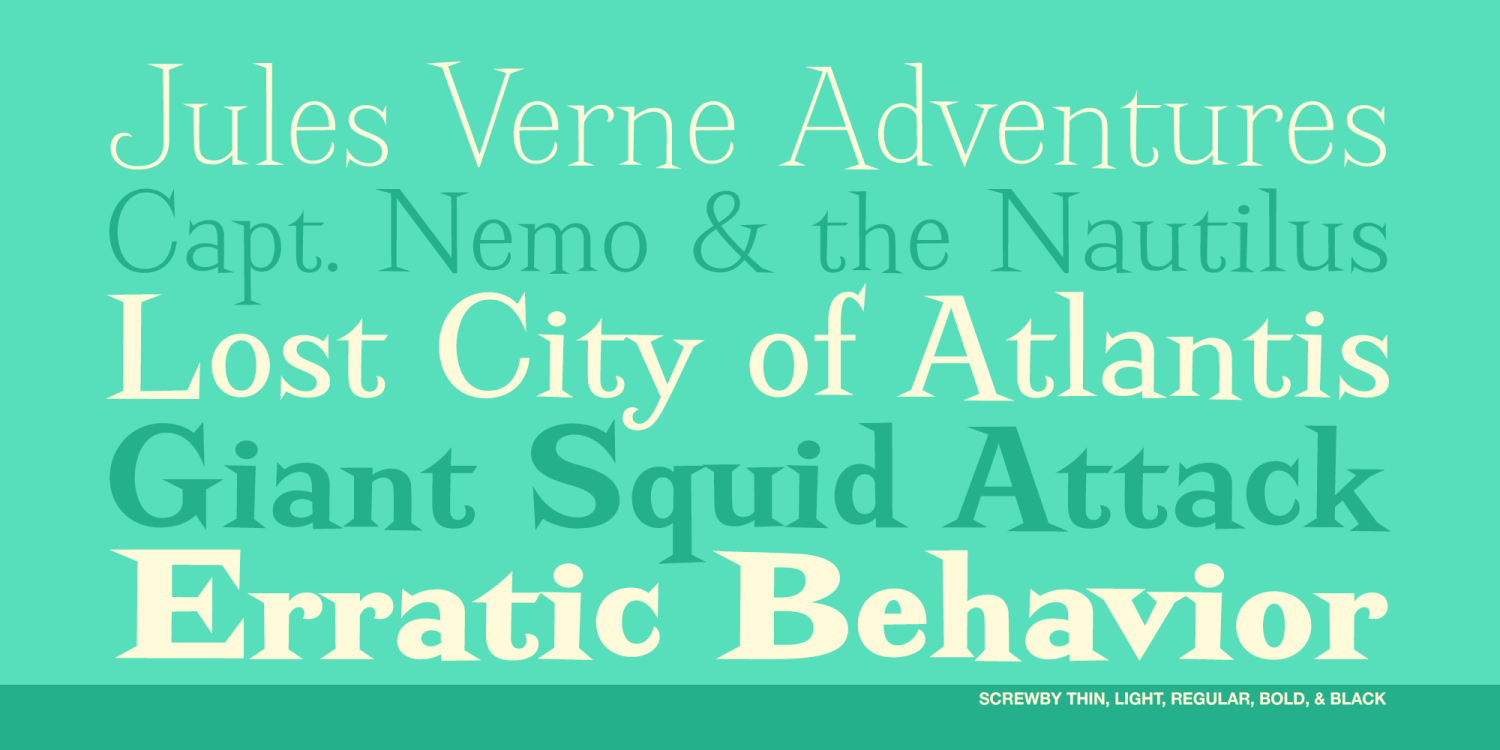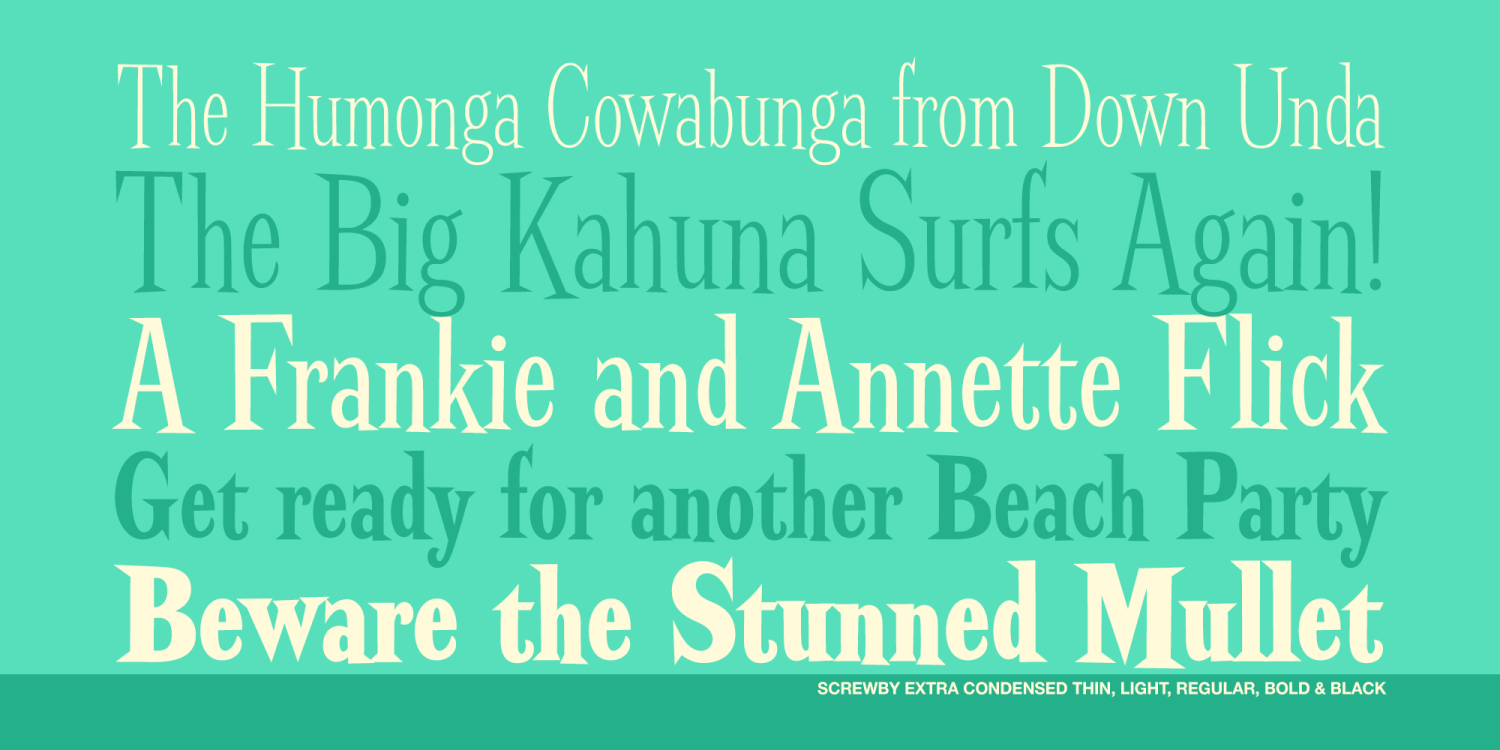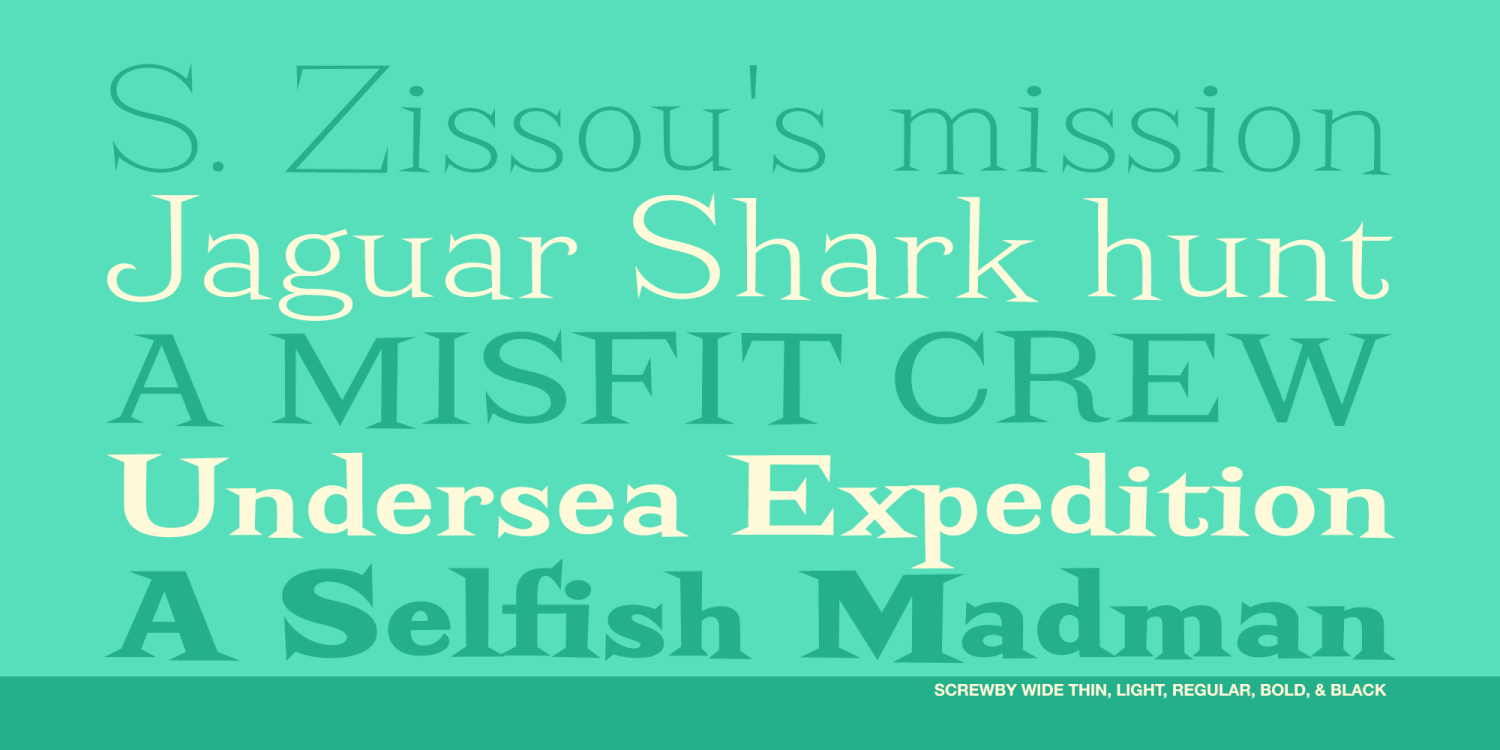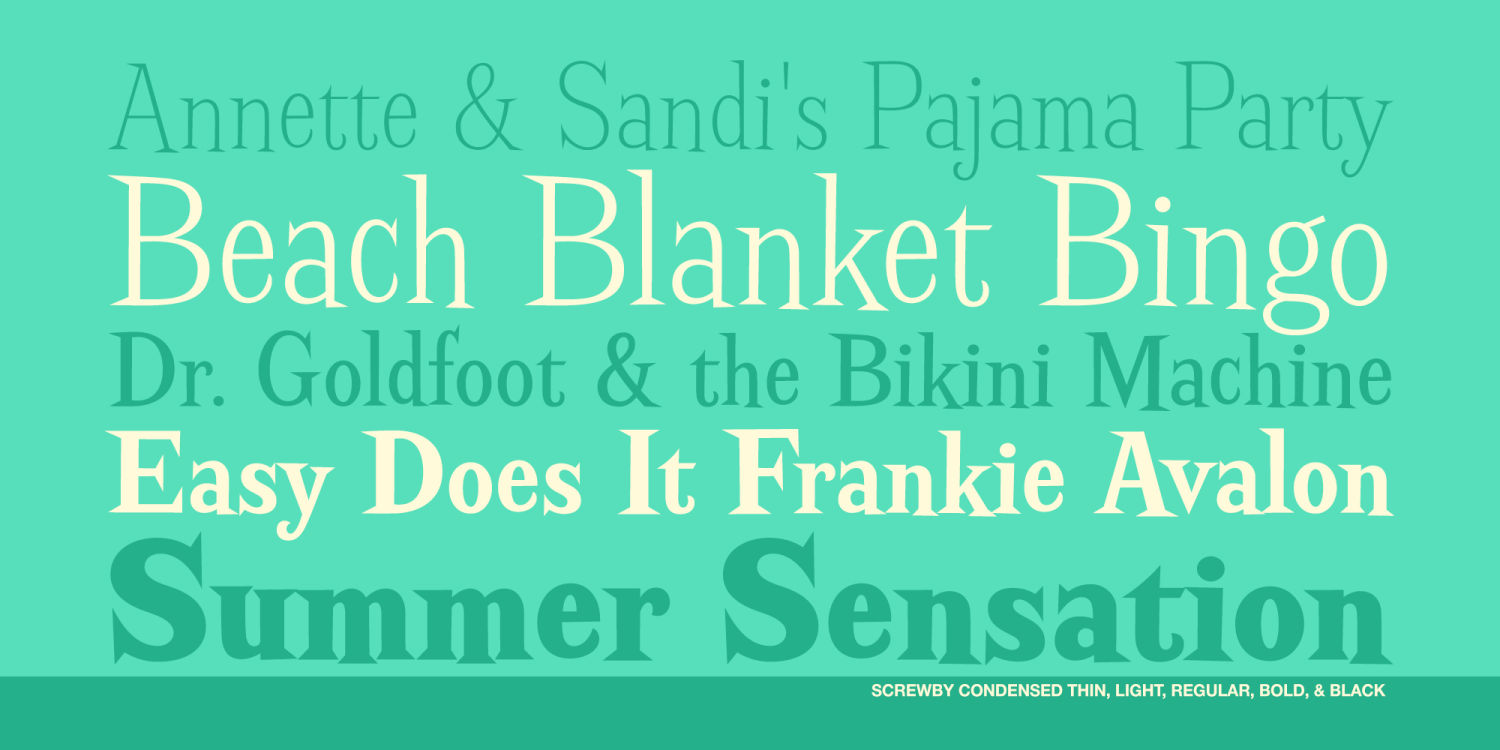
Screwby
Font Family by Pink Broccoli
A slightly offbeat latin typestyle, Screwby started as a digitization of a film typeface called Surf by Lettergraphics. From there, this wonderful typeface was expanded into a giant family of fun widths and weights to play with: from spindly thin and light weights, to chunky bold and blacks. An all-around fantastic treat!